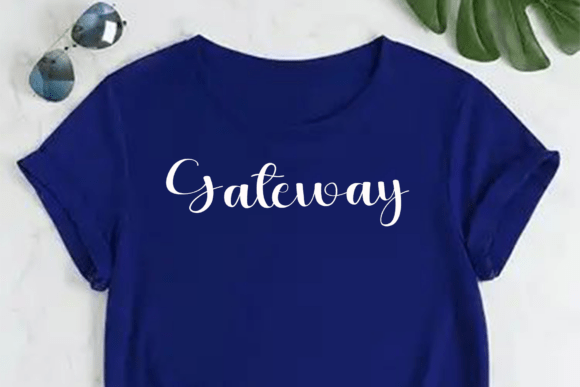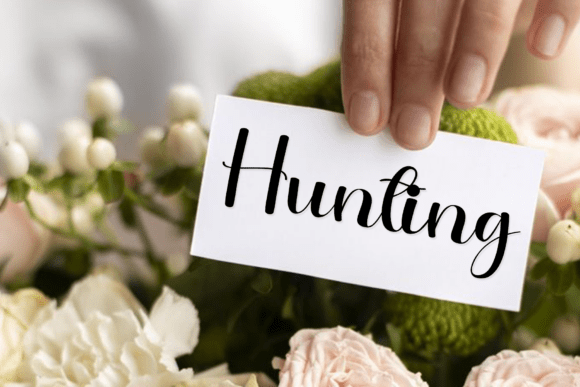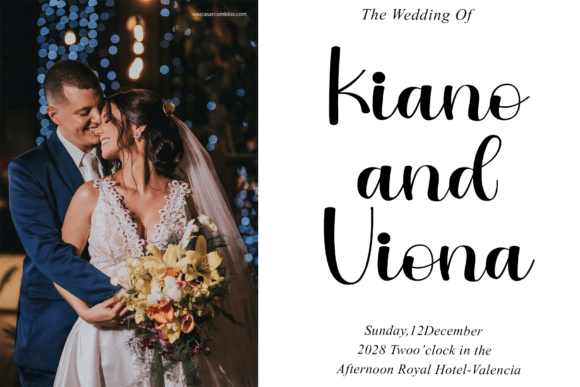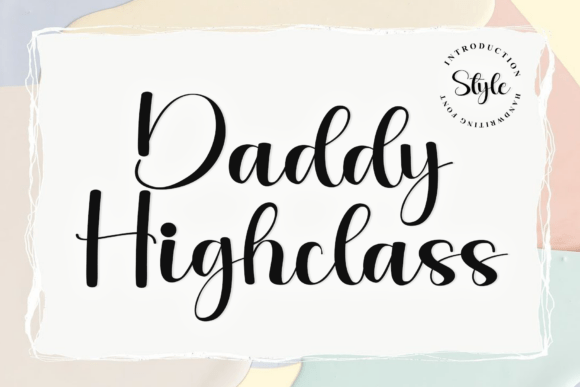
Introduction to Daddy Highclass Font
Daddy Highclass is a β€œunique and professional” entry into the modern handwritten collection, designed to evoke a sense of clarity and crisp elegance.
Featuring tall, thin strokes with a subtle, airy slant, it offers a refined aesthetic that feels as fresh as a mountain breeze Its clean and approachable style makes it ideal for travel photography, branding for outdoor gear, and sophisticated web design.
Key Features of Daddy Highclass Font